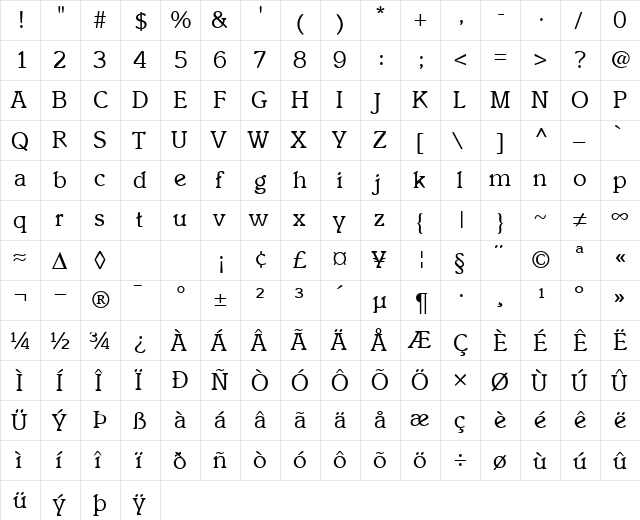
IstriaModern Regular
Design Context for IstriaModern Typeface
IstriaModern takes a measured approach to typography — its balanced proportions and neutral character make it a reliable workhorse for both digital and print work.